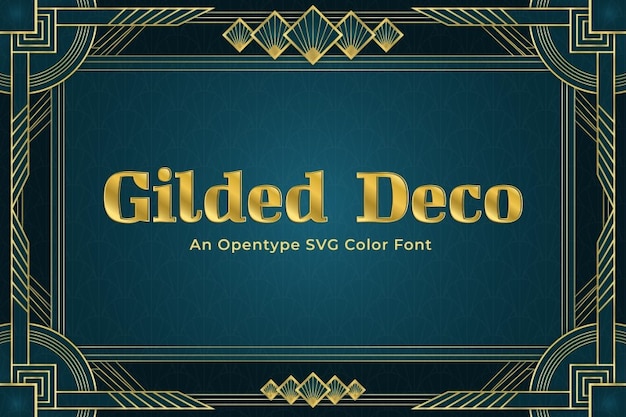
The font that's a vintage masterpiece, exuding luxury and elegant charm, reminiscent of the glamorous Art Deco era! Its design captures the opulence of a bygone era with a touch of timeless elegance. Perfect for projects seeking a refined and sophisticated look. Let "Gilded Deco" add a touch of vintage glamour to your creations.